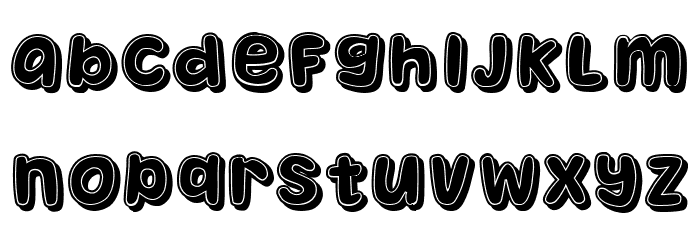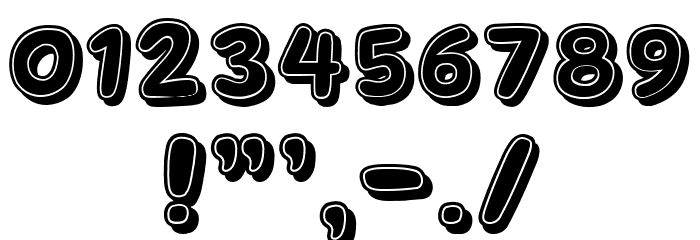
Takeover 3D Filled Regular Font
This playful and bold font features a 3D filled style that gives it a unique and eye-catching appearance. The letters are rounded with a thick outline, creating a sense of depth and dimension. The uppercase and lowercase characters maintain a consistent style, with a whimsical and fun aesthetic that is perfect for creative projects. The numbers and special characters are designed to match the overall theme, ensuring a cohesive look across all text elements. This font is ideal for projects that require a lively and engaging typeface.
A playful 3D filled font with bold, rounded characters and a whimsical style.
- Proposed Projects: Ideal for children's books, playful branding, posters, and creative social media graphics.
- Overall Style: Playful, Fun, Creative